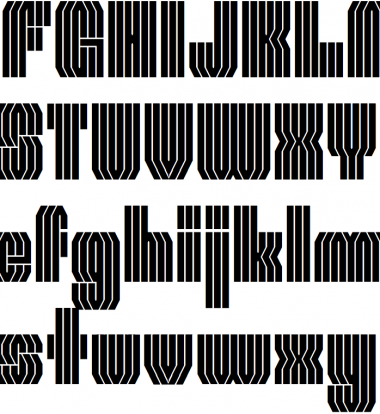
doesn't use anything new, but with all the energy on the site today, i got motivated to finish something :) i guess this is a multi-inline, pseudo-stencil-ish, art deco-ish type of font.
when i did the first few glyphs, this felt very familiar and i searched through several designer's catalogs, including afrojet and dj, to see if i was duplicating something that already existed. i didn't find anything exactly like it, but it sat for a while and i finally got the motivation to complete it. thanks for the feedback from everyone.
I wish you'll complete it... I think it worth it
when i did the first few glyphs, this felt very familiar and i searched through several designer's catalogs, including afrojet and dj, to see if i was duplicating something that already existed. i didn't find anything exactly like it, but it sat for a while and i finally got the motivation to complete it. thanks for the feedback from everyone.